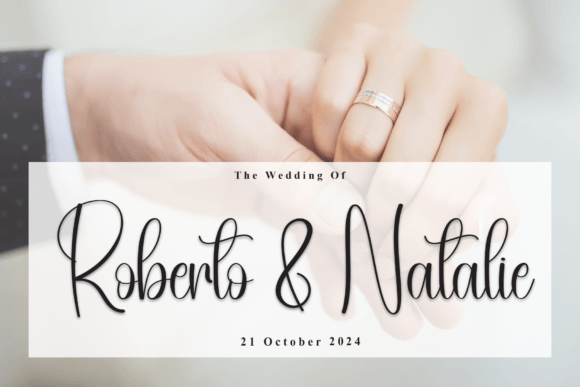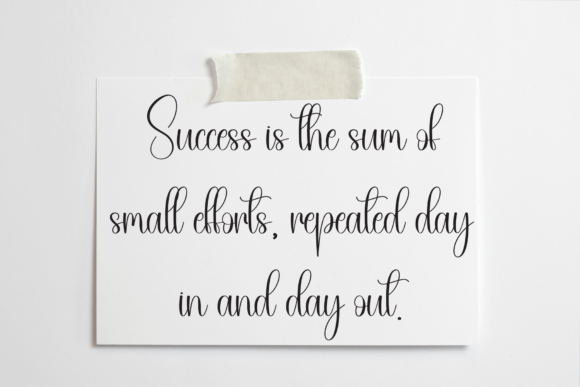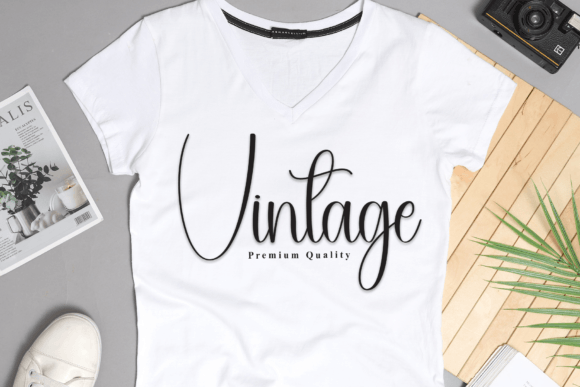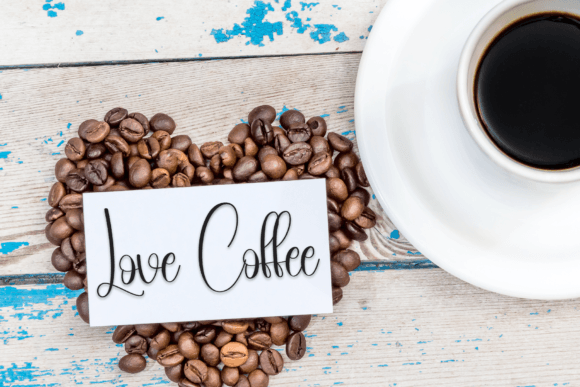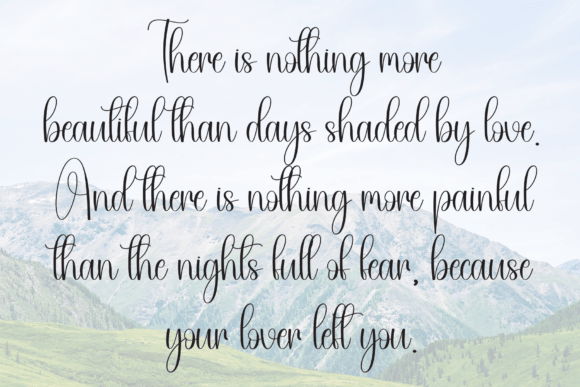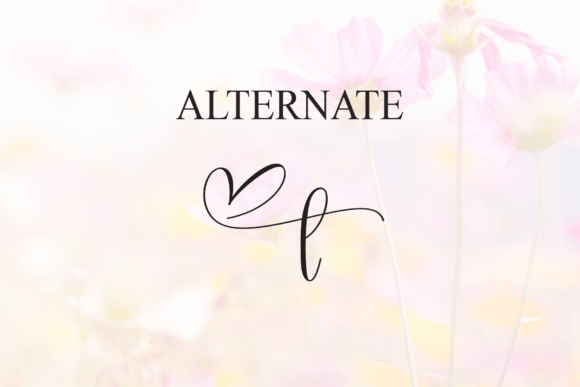
The Beauty of Beautiful Font: Elevate Your Designs with Elegance
Are you tired of using the same old fonts for your designs? Look no further than Beautiful Font, a magical script font that adds a touch of elegance to any creative project. With its flowing lines and sophisticated charm, this font is perfect for designers and crafters looking to elevate their work.
What Makes Beautiful Font So Special?
Beautiful Font is a carefully crafted script font that exudes elegance and sophistication. Its unique design makes it perfect for a variety of creative projects, from Instagram posts to DIY crafts. Whether you’re looking to add a touch of glamour to your designs or create a cohesive brand identity, Beautiful Font is the perfect choice.
Key Features of Beautiful Font
- Magical Script Font: Beautiful Font is a script font that adds a touch of magic to any design. Its flowing lines and curves create a sense of movement and fluidity, making it perfect for creative projects.
- Elegant and Sophisticated: This font is carefully crafted to exude elegance and sophistication. Its unique design makes it perfect for high-end brands, luxury products, and creative projects that require a touch of glamour.
- Versatile: Beautiful Font is versatile and can be used for a variety of creative projects, from Instagram posts to DIY crafts. Its flexibility makes it a great addition to any designer’s toolkit.
Uses for Beautiful Font
Beautiful Font is perfect for a variety of creative projects, including:
- Instagram Posts: Add a touch of elegance to your Instagram posts with Beautiful Font. Its unique design makes it perfect for creating visually appealing graphics and quotes.
- DIY Projects: Take your DIY projects to the next level with Beautiful Font. Its script design makes it perfect for creating beautiful calligraphy and lettering.
- Branding and Identity: Create a cohesive brand identity with Beautiful Font. Its elegant design makes it perfect for high-end brands and luxury products.
- Stationery and Invitations: Add a touch of glamour to your stationery and invitations with Beautiful Font. Its unique design makes it perfect for creating beautiful and elegant designs.
Tips for Using Beautiful Font
Here are some tips for using Beautiful Font in your creative projects:
- Experiment with Different Sizes: Beautiful Font looks great in a variety of sizes. Experiment with different sizes to find the perfect fit for your design.
- Pair with Other Fonts: Beautiful Font pairs well with other fonts. Try pairing it with a bold font for a striking contrast.
- Use for Headlines and Titles: Beautiful Font is perfect for headlines and titles. Its elegant design makes it perfect for creating visually appealing graphics.
- Add a Personal Touch: Beautiful Font is perfect for adding a personal touch to your designs. Use it to create beautiful calligraphy and lettering.
Beautiful Font is a magical script font that adds a touch of elegance to any creative project. Its unique design makes it perfect for designers and crafters looking to elevate their work. With its versatility, ease of use, and elegant design, Beautiful Font is a great addition to any designer’s toolkit. Whether you’re looking to create beautiful Instagram posts, DIY projects, or branding and identity designs, Beautiful Font is the perfect choice.